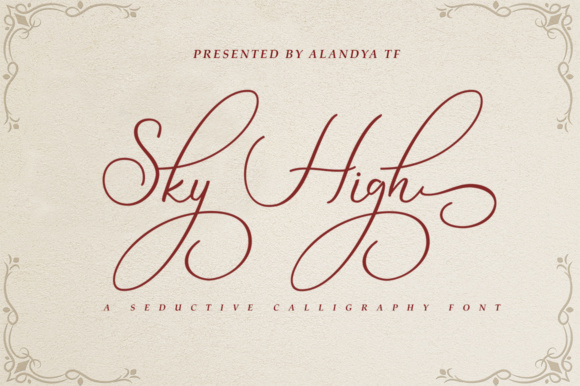
Step into a realm of beauty and grace with the Sky High Script Font, a treasure that will elevate your designs to new heights of elegance. This remarkable font boasts a classic calligraphic style, each letter flowing like a whisper of ink, captivating the eyes of all who behold it.
With Sky High Script, you have the power to transform ordinary words into works of art. Its exquisite curves and intricate details add a touch of timeless sophistication to your creative projects. Whether it's a logo destined to leave a lasting impression, a wedding invitation card brimming with romance, or a branding project seeking a touch of distinction, Sky High Script is your steadfast companion.
Effortlessly elevate your home designs with the Sky High Script Font, transforming living spaces into havens of elegance. Its delicate strokes harmonize seamlessly with modern and traditional interiors alike, creating an ambiance of grace and refinement. Unleash your creativity and let your imagination soar as you craft unique pieces that radiate beauty and charm.
Embark on a journey of artistic exploration with Sky High Script, the font that knows no bounds. Its versatility extends to product packaging, where it lends a touch of luxury and sophistication that attracts attention and compels consumers to take notice. Whether you seek to create packaging that exudes minimalism or embrace the allure of opulence, Sky High Script adapts effortlessly to your vision.